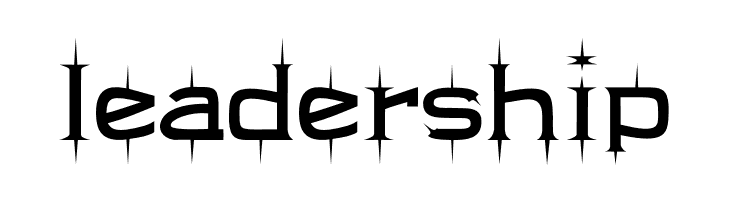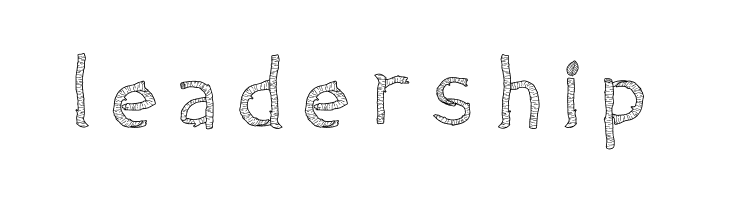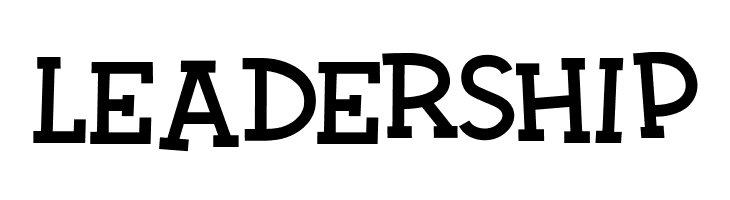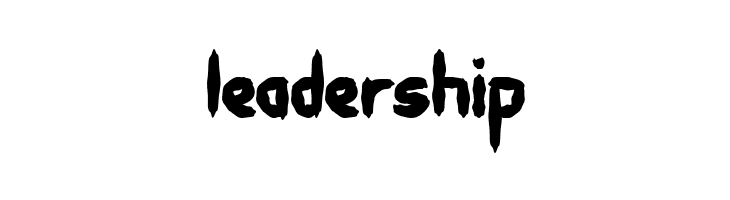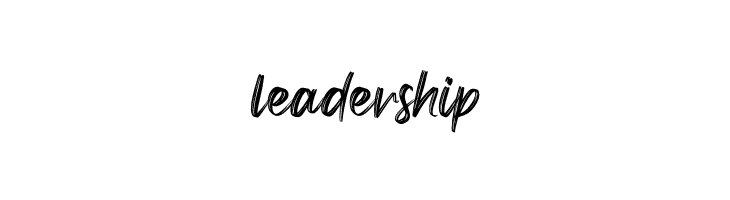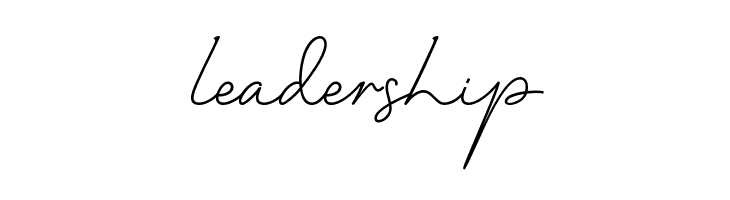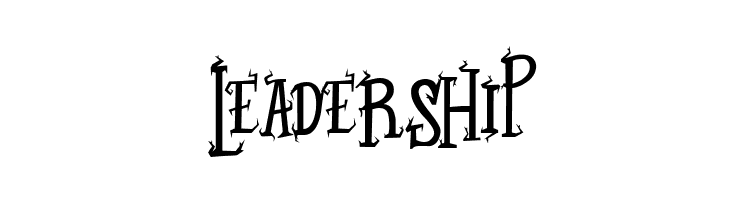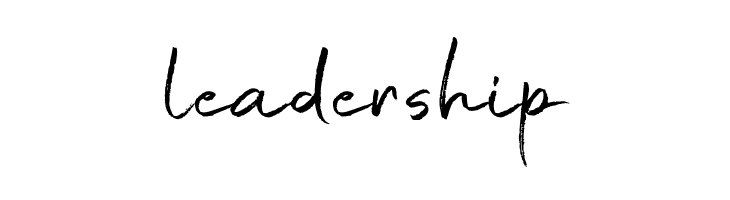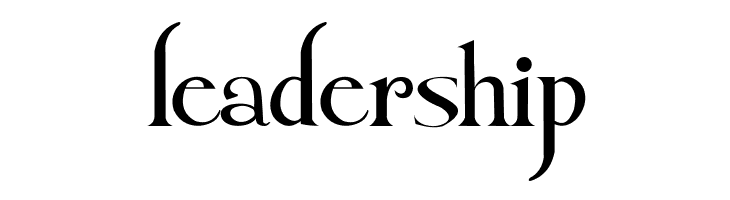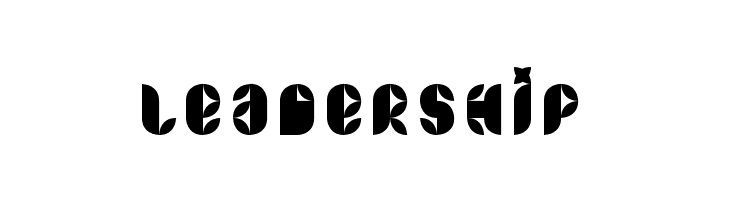
A modern, geometric font with clean lines and rounded edges.
A cursive, handwritten-style font with elegant, flowing strokes.
A bold, geometric, and decorative font with unique cut-out designs.
A bold, brush-style font with an energetic and artistic flair.
A bold, textured font with a handcrafted, artistic feel.
A bold slab serif font with strong, block-like serifs and clear readability.
A modern, light slab serif font with a clean and elegant design.
A modern slab serif font with strong, block-like serifs and a clean, professional appearance.
A bold, three-dimensional font with a dynamic, layered effect.
A playful and dynamic handwritten font with fluid strokes.
A graceful script font with elegant, flowing strokes and sophisticated style.
A bold, energetic script font with flowing strokes and playful curves.
A dynamic, expressive handwritten font with fluid, spontaneous strokes.
A classic serif font with elegant strokes and refined serifs.
A lively, expressive handwritten font with dynamic strokes and a personal touch.
A playful and whimsical font with decorative swirls and loops.
A playful, bold font with quirky serifs and a lively twist.
A whimsical, thorn-adorned decorative font with sharp angles and pointed serifs.
A playful, twig-like font with a hand-drawn, organic style.
A pixelated, retro-style font with a blocky, geometric design.
A playful, hand-drawn font with tall, narrow letters and a whimsical style.
A playful, hand-drawn font with a scratchy texture and whimsical style.
A bold, hand-drawn font with a rugged and organic appearance.
A bold, edgy font with sharp, pointed serifs and a gothic-modern style.
A decorative serif font with elegant flourishes and a dramatic style.